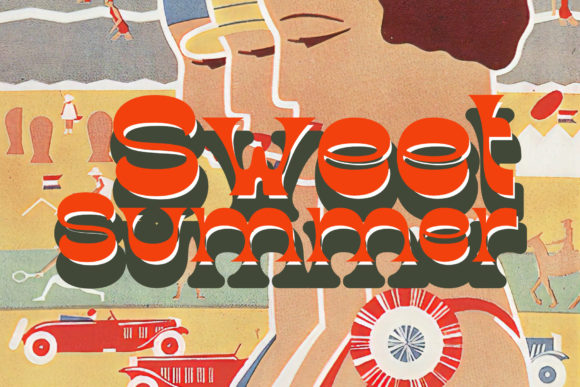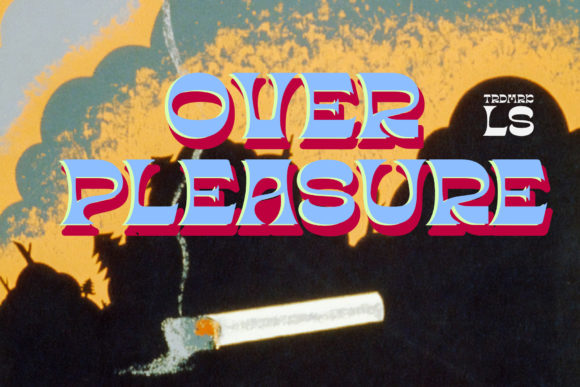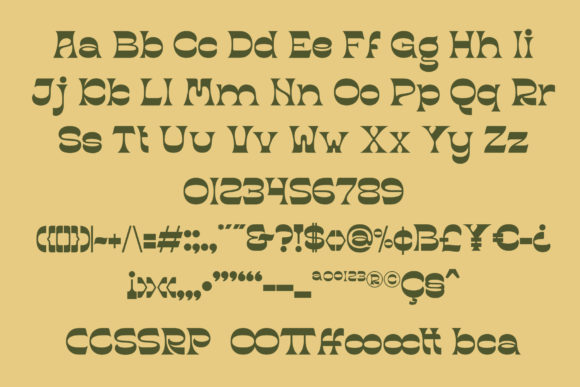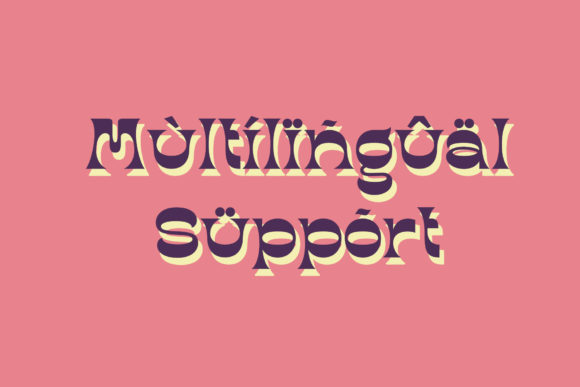
Introduction to Psychonaut Font
You know that moment when you’re working on a creative project and you just need that one special element to bring everything together? For many designers, that moment comes when they discover the perfect font. And for those who’ve been searching, we’ve got exciting news – meet the Psychonaut Font, a cute and quirky display font that’s sure to add a joyful touch to any design.
With its playful, hand-drawn feel and transparent background options, the Psychonaut Font is a valuable resource for designers looking to add a little whimsy to their work. Whether you’re working on a free download or a high-end project, this beautiful font is sure to make your designs stand out from the crowd.
So, what makes the Psychonaut Font so special? And how can you incorporate it into your next creative project? Let’s dive in and explore the world of this charming display font.
Key Features of Psychonaut Font
- High-quality design resource ideal for creative projects requiring a unique aesthetic.
- Features a transparent background, allowing for seamless integration into designs with complex backgrounds.
- Designed with a focus on creative freedom, making it an excellent choice for designers working on high-end projects.
- Can be easily customized and edited to fit the specific requirements of a design project.
Honest Review: Psychonaut Font
As a designer, I was excited to dive into the Psychonaut Font, a free download that I hoped would elevate my creative project. Upon closer inspection, I was pleased to find that this design resource excels in several areas.
- High-quality design: The font’s clean lines and unique style make it perfect for a variety of creative projects.
- Transparent background: This feature allows designers to easily incorporate the font into their designs without any unwanted background distractions.
What works well for me is the way the Psychonaut Font seamlessly integrates with other design elements. The subtle nuances in the font’s style make it a great choice for adding a touch of sophistication to any design.
⚠️ However, I did encounter a limitation with the font’s limited character set. While this isn’t a major issue for simple text-based projects, it may be a concern for more complex designs.
Overall, I’m impressed with the Psychonaut Font. Its unique style and high-quality design make it a valuable addition to any designer’s toolkit. With a little creativity, I’m confident that this font can help take my projects to the next level.
Tips for Getting the Most Out of the Psychonaut Font
To get the most out of the Psychonaut Font, use it with a transparent background to create a seamless design. You can also experiment with different font sizes and styles to add visual interest to your project.
The Psychonaut Font is a versatile design resource that can be used in a variety of creative projects, including graphic design, web design, and digital art. Its high-quality design makes it perfect for use in presentations, posters, and other visual materials.